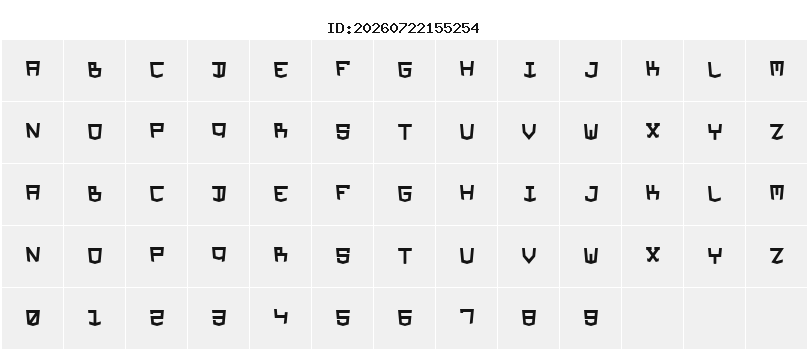
HTML5 Values Preview
• Font Name: HTML5 Values
• Full Font Name: HTML5 Values
• Copyright: Font made by El Hechicero, inspired from HTML5 & CSS 3 logos (for the letters 3 & 5) made by th W3C (http://www.w3.org/)
• Designer: El Hechicero
About HTML5 Values.ttf
HTML5 Values.ttf is a modern, elegant sans-serif font designed for ultimate readability and visual harmony. Perfect for branding, headlines, web design, and print materials.